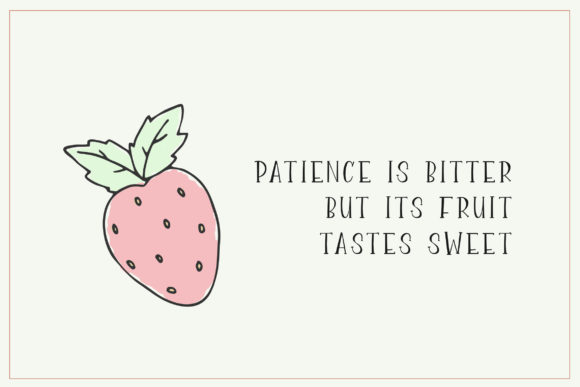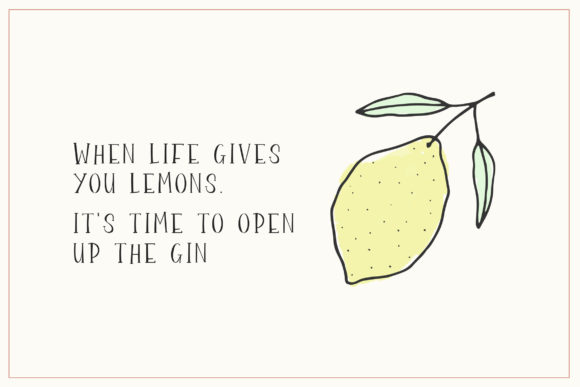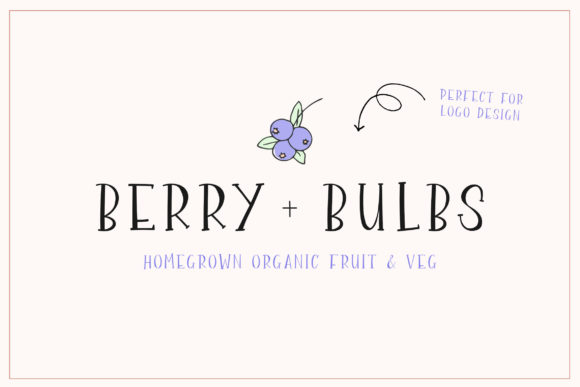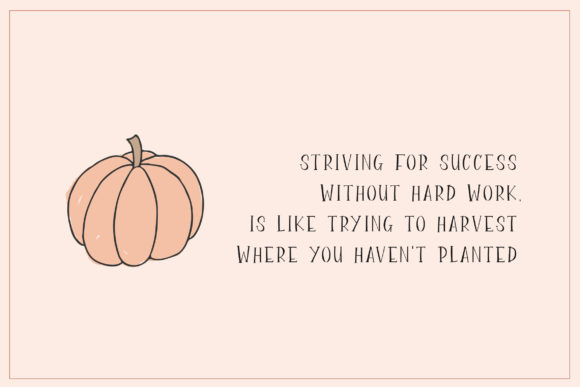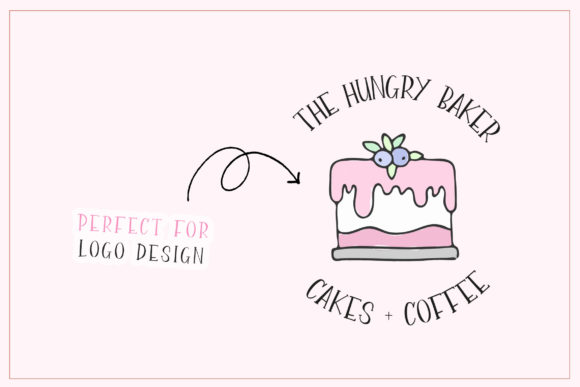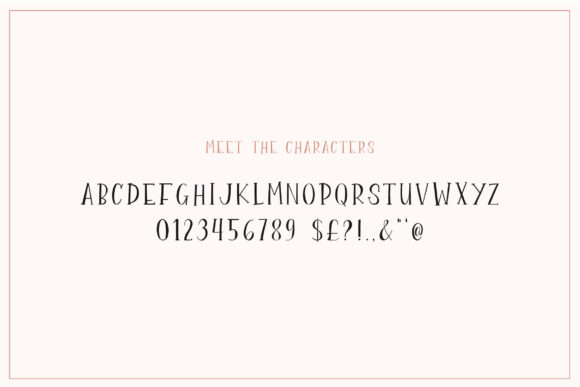
Discover the Charm of Farmyard Font: Elevate Your Designs with a Cool and Distinct Display Font
In the world of typography, fonts play a crucial role in conveying the message and aesthetic of a design. For designers and crafters looking to add a touch of uniqueness and charm to their creations, the Farmyard Font is an excellent choice. This cool and distinct display font is neatly crafted and highly detailed, making it a wonderful asset to any font library.
What Makes Farmyard Font Stand Out?
Farmyard Font is not just another font; it’s a statement piece. Its distinct style and detailed craftsmanship set it apart from more generic fonts. Whether you’re working on a project that requires a rustic touch or something more modern and sleek, Farmyard Font can adapt to various themes and topics. Its versatility is one of its most appealing features, making it suitable for a wide range of design projects.
Key Features of Farmyard Font
- Unique and Distinctive Style: Farmyard Font boasts a one-of-a-kind design that can instantly elevate your creations.
- Highly Detailed: The font’s intricate details make it stand out, adding depth and character to any text.
- Versatile: Suitable for various design projects, from rustic and vintage themes to modern and sleek aesthetics.
- Easy to Read: Despite its detailed design, Farmyard Font remains clear and readable, making it perfect for display texts.
How to Use Farmyard Font in Your Designs
Integrating Farmyard Font into your design projects is straightforward. Here are a few ideas to get you started:
- Headings and Titles: Use Farmyard Font for headings and titles to grab attention and set the tone for your content.
- Branding and Logos: Incorporate Farmyard Font into your branding and logos to give them a unique and memorable look.
- Invitations and Announcements: Add a touch of charm to your invitations and announcements with Farmyard Font.
- Social Media Graphics: Stand out on social media with eye-catching graphics featuring Farmyard Font.
Tips for Maximizing the Impact of Farmyard Font
To get the most out of Farmyard Font, consider the following tips:
- Pair with Complementary Fonts: Use Farmyard Font alongside simpler fonts to create contrast and hierarchy in your designs.
- Adjust Size and Color: Experiment with different sizes and colors to make your text pop.
- Consider the Background: Choose backgrounds that complement the rustic or modern feel of Farmyard Font.
| Font Name | Farmyard Font |
| Author | Salt and Pepper Fonts |
Farmyard Font is a cool and distinct display font that can significantly enhance your designs. Its unique style, detailed craftsmanship, and versatility make it a valuable addition to any font library. Whether you’re a designer looking to elevate your projects or a crafter seeking to add a personal touch to your creations, Farmyard Font is an excellent choice. Explore its potential and discover how it can transform your designs.
Key Benefits:
- Unique and distinctive style
- Highly detailed and crafted
- Versatile for various design projects
- Easy to read and visually appealing